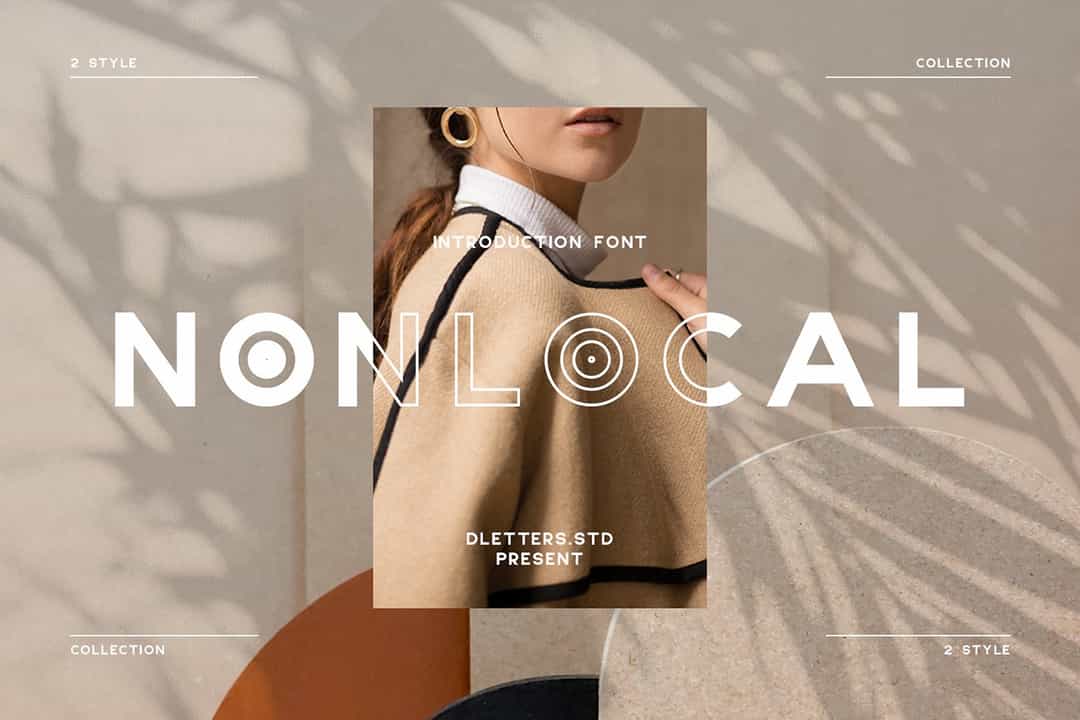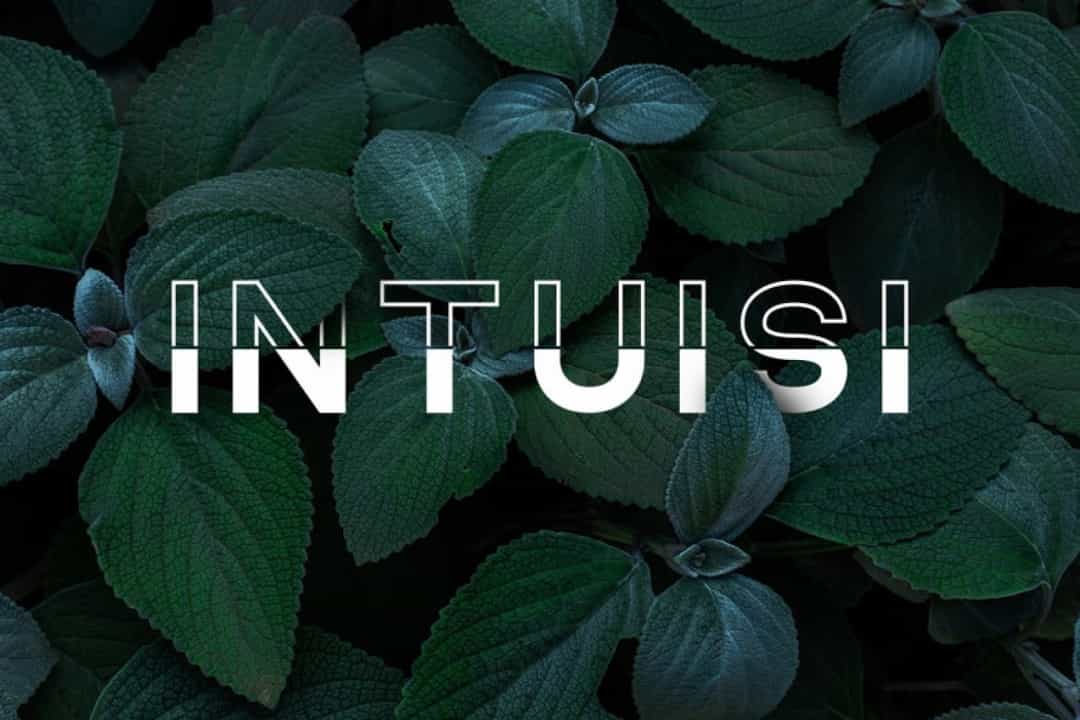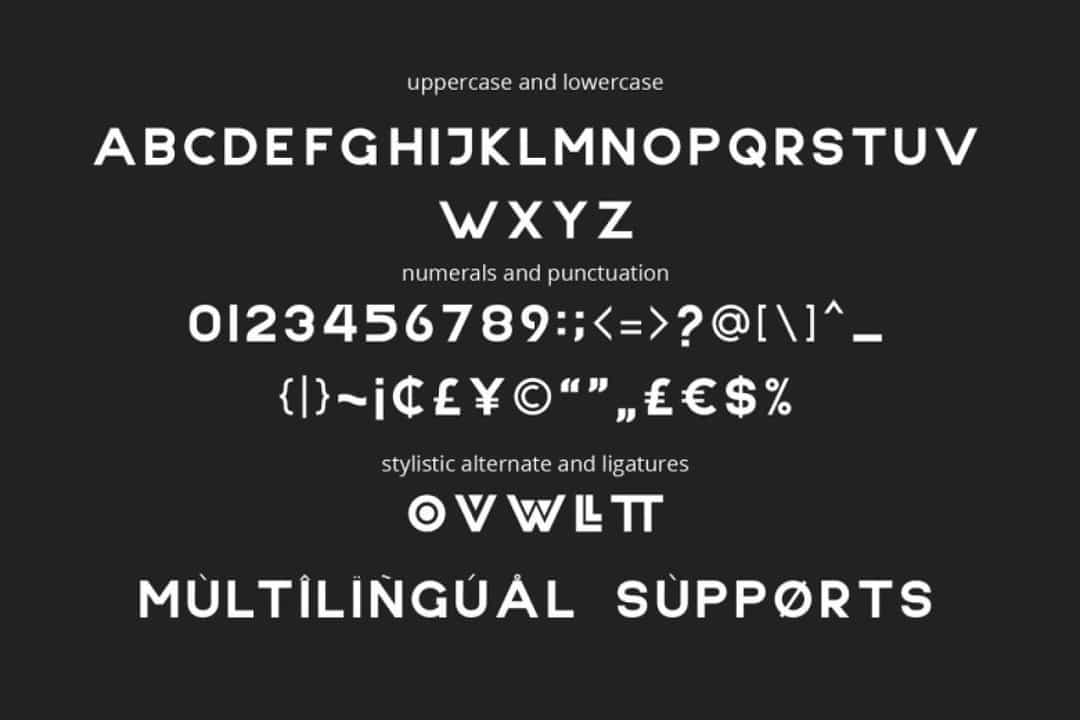
NONLOCAL is a strong character that creates an extremely durable and regular font. Its easy reading makes it perfect for daily use in advertising, branding logos quotes headlines high fashion Landing Page Magazine projects or advertising campaigns. Plus with two styles to choose from there’s plenty of choice available when planning out your next project!